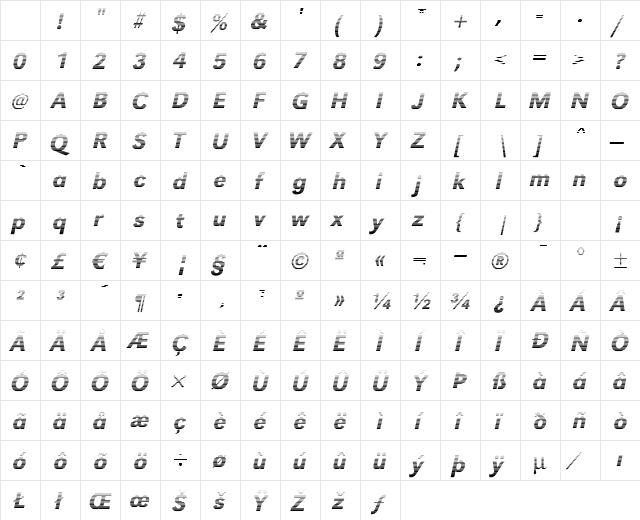
TomBeckerGradient-Medium Italic Free Font
Design Context for TomBeckerGradient-Medium
TomBeckerGradient-Medium is a composed and adaptable typeface that performs quietly and consistently across a wide range of design contexts. The slanted form adds forward momentum and visual energy.